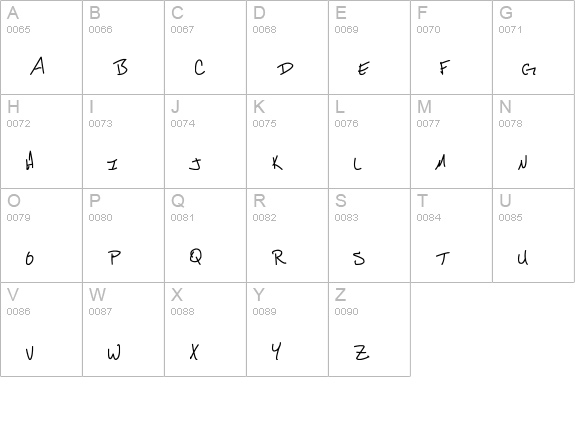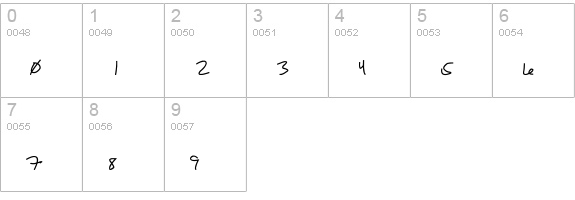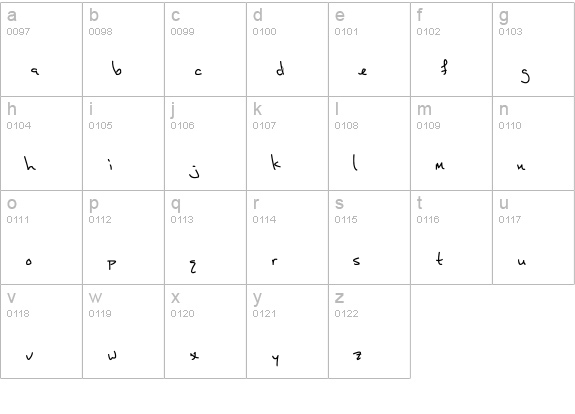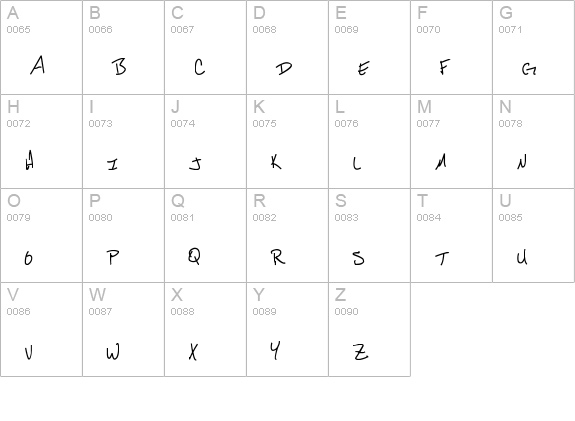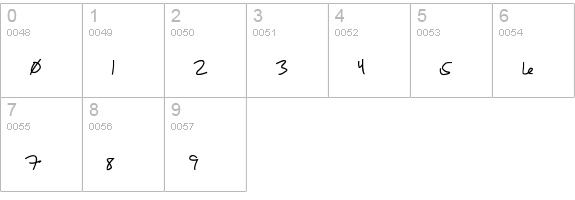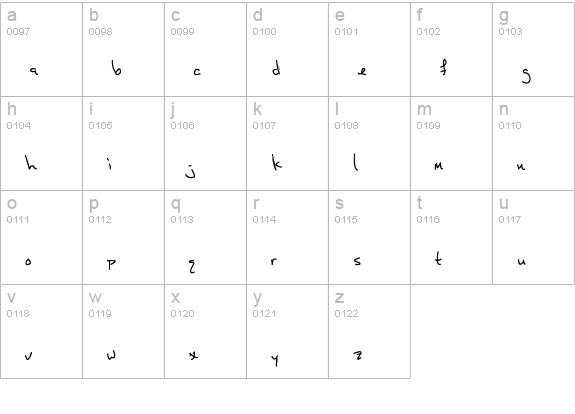
Daryl Short Font Details
Daryl Short font is a modern and stylish typeface that exudes sophistication and elegance. With its clean lines and unique design, this font is perfect for a variety of projects, from branding to advertising to social media posts. The Daryl Short font is versatile and can be used in both print and digital applications, making it a valuable addition to any designer's toolkit. Best of all, this font is completely free to download at FontsMarket.com, allowing you to access high-quality design resources without breaking the bank. Embrace the beauty and functionality of Daryl Short font in your next project and watch it elevate your design to the next level.